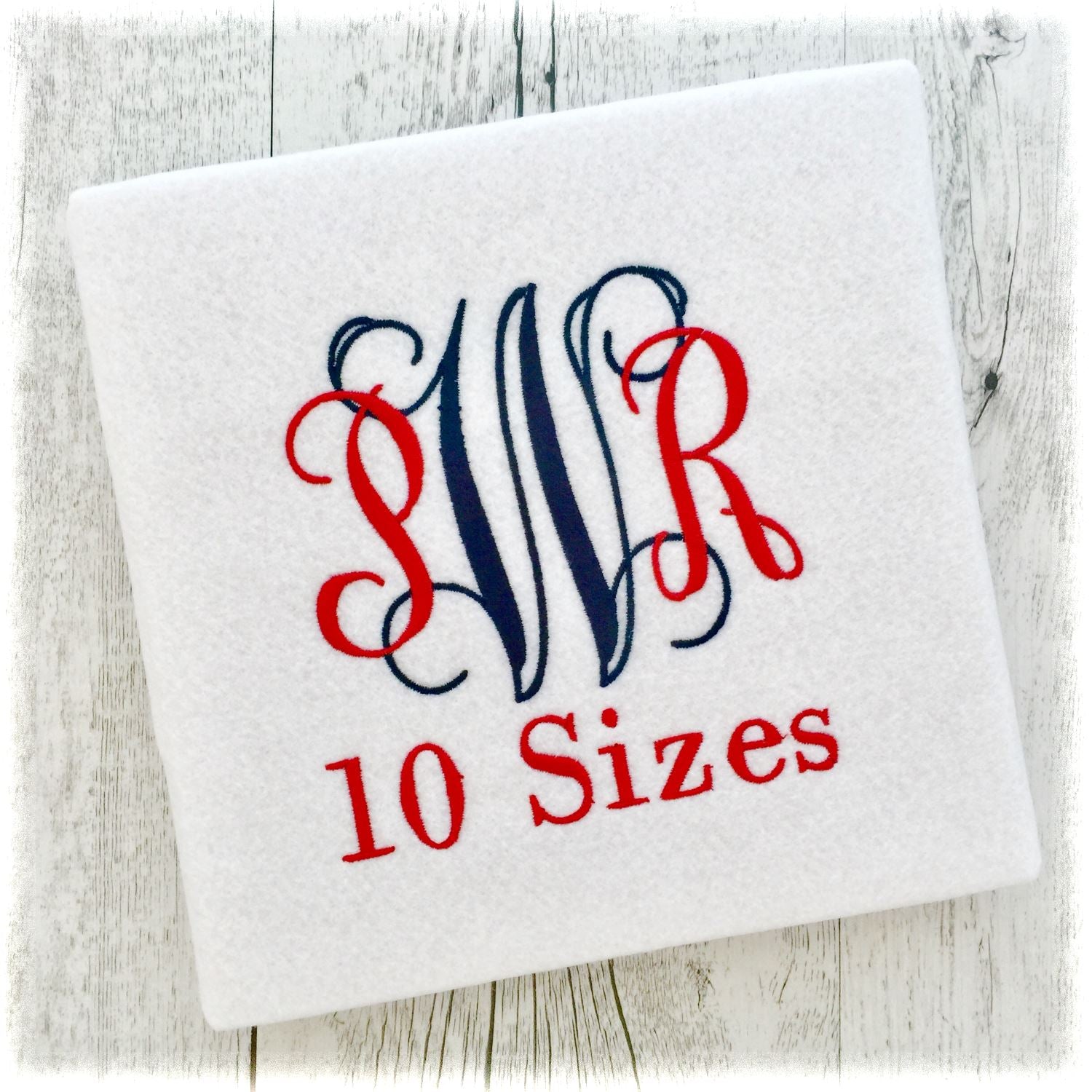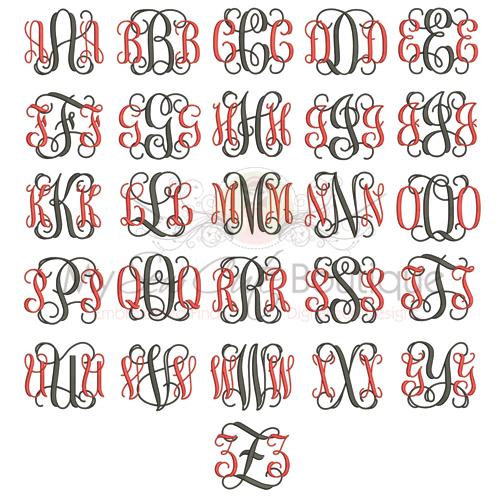
About Intertwined Monogram Embroidery Fonts Machine Letters Designs – Intertwined Monogram Design – BX Monogram Fonts – 10 Sizes
Intertwined Monogram Embroidery Fonts Machine Letters Designs – Intertwined Monogram Design – BX Monogram Fonts – 10 Sizes The Intertwined Monogram includes 10 sizes for you to use on all of your embroidery or appliqué products. My Sew Cute Boutique have optimized all of these designs, reducing the stitch count and reducing the stitch time. All of these designs stitch out beautifully. The Intertwined Monogram includes all 26 letters. You will receive the entire alphabet including the following: * Upper Case Letters; and * Sizes you will receive in Satin Stitching are 1′, 1.5′ 2′, 2.5′, 3′, 3.5′, 4′, 4.5′, 5′, * Sizes you will receive in Fill Stitching are 5.5′ (font sizes are approximate). Enclosed in the downloadable attachment are the following formats:- * BX * DSZ – (Tajima) * DST – (Tajima) * EXP – (Melco) * HUS – (Husqvarna,Viking) * JEF – (Janome,Elna,Kenmore) * JEF + – (Janome) * PCM – Pfaff * PES (V1 to V9) – (Brother,Deco,Babylock) * PEC – (Brother,Deco,Babylock) * PCS – (Pfaff) * SHV – (Viking Designer 1) * SEW – (Janome,Elna,Kenmore) * TAP – (Happy) * VIP – (Pfaff) * VP3 – (Pfaff) * XXX – (Compucon, Singer)) Due to the electronic nature of these files there will be no refunds. You must have an embroidery machine and the ability to transfer designs from your computer to your embroidery machine. You must have embroidery editing software to merge the letters together to create names/words/monograms. If you don’t have editing software you are able to sew out the letters singularly by manually aligning them on your embroidery machine. All of these embroidery font are copyright protected by ‘My Sew Cute Boutique’ and may not be distributed, altered or unaltered in any way. There is no guarantee of the quality of the designs once they are edited, resized or altered. You may use our Intertwined Monogram to make finished items for personal use, gifts and finished products you sell. Our designs are not for use to make heat transfers or vinyl designs.